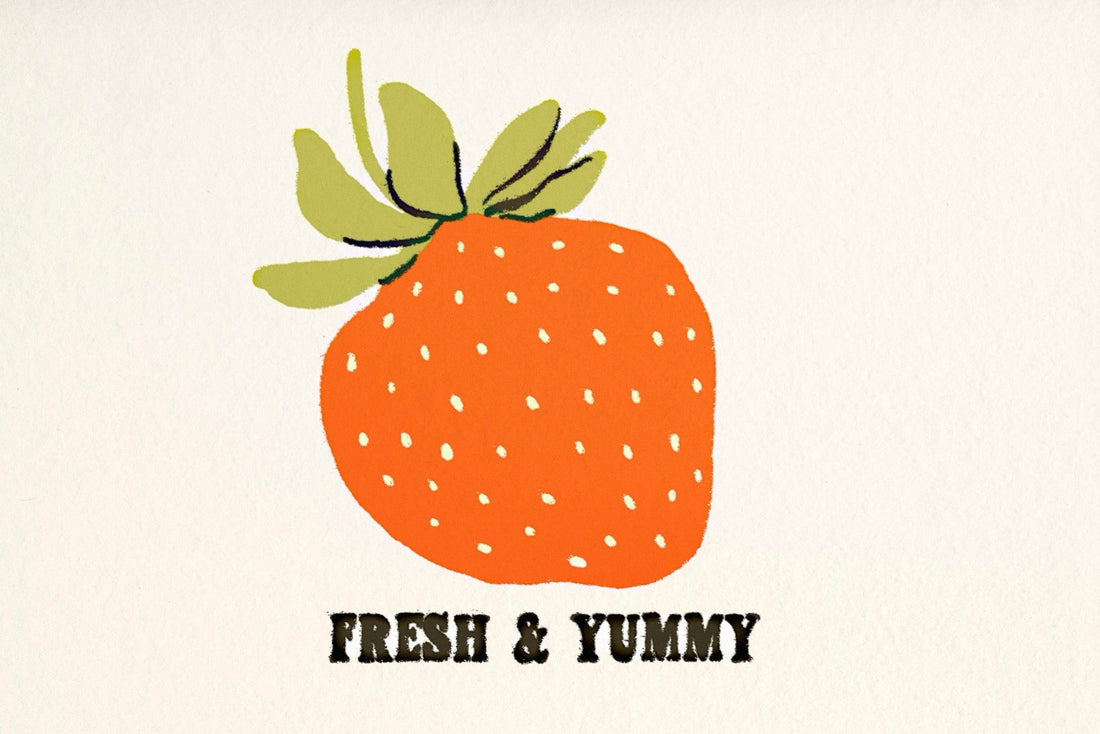
Best Hand-Lettered Fonts for Bakery and Food Branding
Food branding runs on trust as much as anything else, people aren't going to want to eat something that doesn't look safe, tasty, and appealing first. The type and color on your label or menu are usually the first things a customer notices, well before they read an ingredient list or a price, so it's worth getting that first impression right. Whether you're going for artisanal and decadent, fresh and wholesome, or classic and comforting, that tone gets set before anyone takes a bite. A hand-lettered font can do a lot of that work on its own.
Why Handwritten Type Works So Well for Food
A handwritten font can signal to a customer that a person made the thing you're about to eat, not a factory. Small wobbles and uneven letterforms read as care rather than sloppiness in this context, especially on packaging, labels, and menu boards where people are already looking for signs that a real hand was involved.
Fonts Worth Considering for Food and Bakery Branding
Handmade Sans: Vintage, Label-Ready, Established
Handmade Sans was actually inspired by old labels and imperfect printing, so it carries a genuinely vintage feel without trying too hard. Hand drawn with plenty of alternates, it's built for logos and display text that want a little history behind them.
Best for
Bakery packaging, labels, and signage that want to feel established and authentic, like a recipe passed down.
Painted Serif: Warm, A Little Fancy, Still Approachable
Painted Serif brings hand-painted lettering into a classic serif shape, with natural texture and soft edges. It's lively and warm without trying to look formal.
Best for
Bakery menus, packaging, and pastry case labels that want to feel a little elevated and decadent, refined enough for a glass case, without losing warmth.
Storybook: Nostalgic, Editorial, Vintage
Storybook was inspired by old storybook covers and editorial lettering, blending soft calligraphic movement with modern hand-lettering.
Best for
Candy packaging, recipe cards, and product labels that want a touch of sparkle alongside the nostalgia, family recipes, old-fashioned treats, anything that wants to feel classic, comforting, and a little magical.
Organic Hand: Clean, Natural, Quietly Expressive
Organic Hand blends the simplicity of print with the flow of script, casual and natural without losing legibility.
Best for
Farm-to-table packaging, product labels, and menus that want a fresh, wholesome look with a human touch instead of anything overly polished.
Good Notes: Personal, Like a Handwritten Recipe Card
Good Notes gives it that written-in-the-moment note or letter to a friend feel instead of reading like a stiff font.
Best for
Menus, recipe cards, or packaging copy that wants to feel personal and comforting, like it was actually written by the person who made the food.
Smoothie: Bold, Playful, Modern
Smoothie brings wiggly edges and smooth curves together for a playful, bold vibe that reads current rather than vintage.
Best for
Snack packaging, drink labels, and food brands that want vibrant, modern energy over nostalgia, anything that wants to feel fun and a little loud.
Picking the Right Feeling for Your Food Brand
Start with whether you want your food brand to feel nostalgic, elevated, natural, personal, bold, modern or a mix of a few, then let that point you to the font that fits.